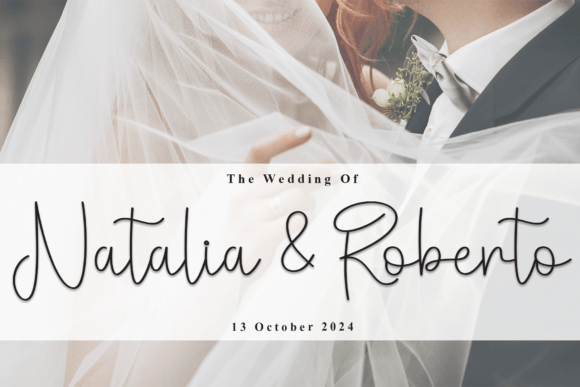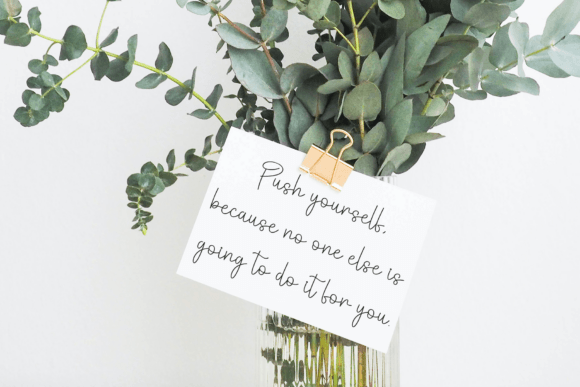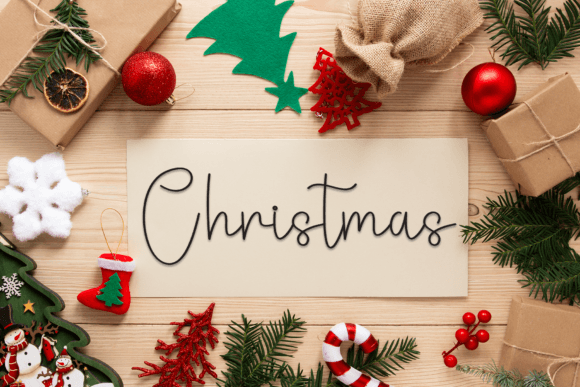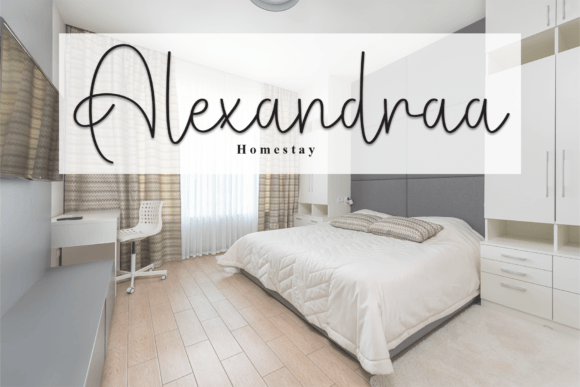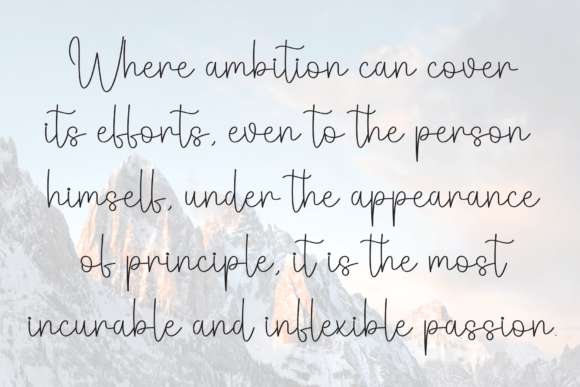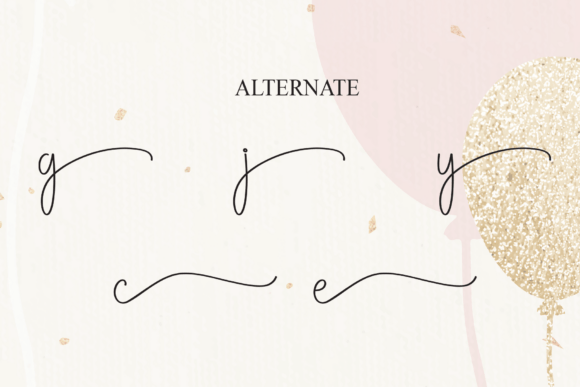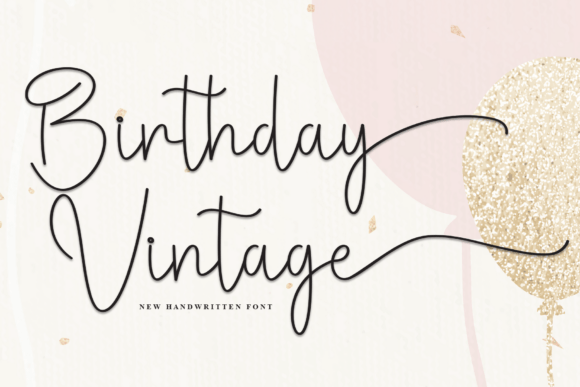
Introducing Birthday Vintage Font: The Sweet and Friendly Handwritten Font for Your Designs
Are you looking for a font that can add a touch of sweetness and friendliness to your designs? Look no further than the Birthday Vintage font! This beautiful handwritten font is perfect for a wide range of design projects, from birthday cards and invitations to branding and packaging. In this article, we’ll take a closer look at the Birthday Vintage font, its features, and how you can use it to take your designs to the next level.
What is Birthday Vintage Font?
Birthday Vintage is a sweet and friendly handwritten font that is designed to bring a personal touch to your designs. Its natural and unique style makes it incredibly fitting to a large pool of designs, from playful and whimsical to elegant and sophisticated. The font’s versatility is limitless, and the only limit is your imagination!
Key Features of Birthday Vintage Font
- Handwritten style: The Birthday Vintage font features a beautiful handwritten style that is perfect for adding a personal touch to your designs.
- Unique and natural: The font’s unique and natural style makes it stand out from other fonts, and it’s perfect for designs that require a touch of elegance and sophistication.
- Versatile: The Birthday Vintage font is incredibly versatile and can be used for a wide range of design projects, from birthday cards and invitations to branding and packaging.
- Easy to read: The font is easy to read, making it perfect for designs that require a clear and concise message.
How to Use Birthday Vintage Font in Your Designs
The Birthday Vintage font can be used in a variety of design projects, including:
- Birthday cards and invitations: The font is perfect for creating beautiful and personalized birthday cards and invitations.
- Branding and packaging: The font can be used to create unique and eye-catching branding and packaging designs that stand out from the crowd.
- Social media graphics: The font can be used to create engaging and shareable social media graphics that showcase your brand’s personality.
- Stationery and paper crafts: The font is perfect for creating beautiful and personalized stationery and paper crafts, such as journals, planners, and greeting cards.
Tips for Using Birthday Vintage Font
Here are some tips for using the Birthday Vintage font in your designs:
- Use it with contrasting colors: The font looks great when paired with contrasting colors that make it stand out.
- Experiment with different sizes: The font can be used in a variety of sizes, from small and delicate to large and bold.
- Pair it with other fonts: The Birthday Vintage font can be paired with other fonts to create a unique and eye-catching design.
- Use it to add a personal touch: The font is perfect for adding a personal touch to your designs, making them more relatable and engaging.
The Birthday Vintage font is a beautiful and versatile handwritten font that is perfect for a wide range of design projects. Its natural and unique style makes it incredibly fitting to a large pool of designs, and the only limit is your imagination! With its ease of use and flexibility, this font is a must-have for designers and crafters looking to add a touch of sweetness and friendliness to their designs.